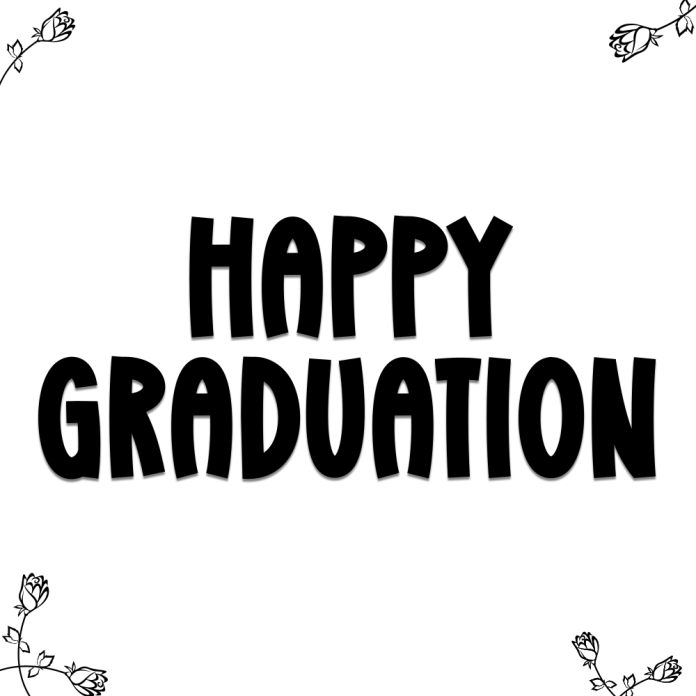
Happy Graduation Font
Handwritten font created with the sincerity of an artist, With a casual and sporty feel, this font is perfect for greeting cards, t-shirts, jackets, hats, product brands, marketing promotions, logos, wedding supplies, models, and anything you want to look luxurious and elegant.